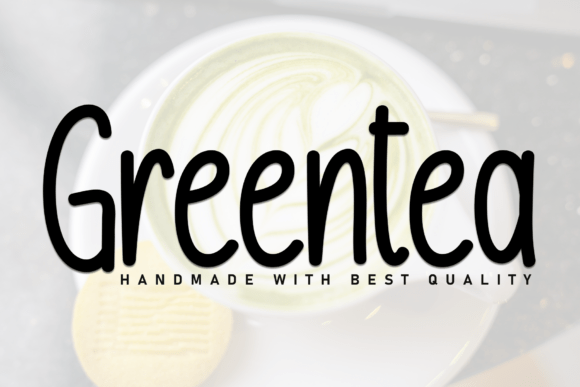
Introducing Greentea Font: The Perfect Handwritten Marker Font for Your Design Needs
Are you looking for a font that exudes a sense of relaxation and sportiness while still conveying luxury and elegance? Look no further than Greentea Font, a beautiful handwritten font that mimics the look of being drawn with a marker. With its unique blend of casual and sophisticated vibes, Greentea Font is perfect for a wide range of design applications, from branding and logos to wedding supplies, greeting cards, and marketing promotions.
Key Features of Greentea Font
- Handwritten with a marker feel: Greentea Font has a distinctive, hand-crafted look that gives it a personal and approachable feel.
- Relaxed and sporty vibe: The font’s casual, laid-back style makes it perfect for designs that need to convey a sense of ease and friendliness.
- Luxurious and elegant: Despite its casual feel, Greentea Font still manages to convey a sense of sophistication and luxury, making it ideal for high-end designs.
- Versatile: Greentea Font can be used for a wide range of design applications, from branding and logos to wedding supplies, greeting cards, and marketing promotions.
Design Applications for Greentea Font
Greentea Font is an incredibly versatile font that can be used for a wide range of design applications. Here are some ideas to get you started:
- Branding and logos: Greentea Font is perfect for creating unique and memorable logos that convey a sense of relaxation and sophistication.
- Wedding supplies: The font’s elegant and luxurious feel makes it ideal for wedding-related designs, such as invitations, programs, and place cards.
- Greeting cards: Greentea Font is a great choice for greeting cards, adding a personal and touch to any occasion.
- Fashion and lookbooks: The font’s sporty and relaxed vibe makes it perfect for fashion designs, such as lookbooks and catalogs.
- Marketing promotions: Greentea Font can add a touch of elegance and sophistication to any marketing promotion, from brochures to flyers.
The Benefits of Using Greentea Font
- Unique and memorable: Greentea Font’s distinctive look will help your designs stand out from the crowd and leave a lasting impression.
- Versatile: The font’s versatility means you can use it for a wide range of design applications, from branding and logos to wedding supplies and marketing promotions.
- Elegant and sophisticated: Despite its casual feel, Greentea Font still conveys a sense of luxury and elegance, making it perfect for high-end designs.
- Easy to read: The font’s clear and legible design makes it easy to read, even at small sizes.
Tips for Using Greentea Font
- Use it with a contrasting background: Greentea Font’s marker-like feel works best with a contrasting background, such as a light-colored background for a bold and eye-catching look.
- Experiment with different sizes: Greentea Font looks great at a range of sizes, from large headings to smaller body text.
- Pair it with other fonts: Greentea Font pairs well with other fonts, such as sans-serif fonts for a bold and modern look.
- Use it consistently: To get the most out of Greentea Font, use it consistently throughout your design to create a cohesive and professional look.
In conclusion, Greentea Font is a beautiful and versatile handwritten font that is perfect for a wide range of design applications. With its unique blend of casual and sophisticated vibes, Greentea Font is sure to add a touch of elegance and luxury to any design. Whether you’re looking to create a memorable logo, a stunning wedding invitation, or a professional marketing promotion, Greentea Font is the perfect choice.